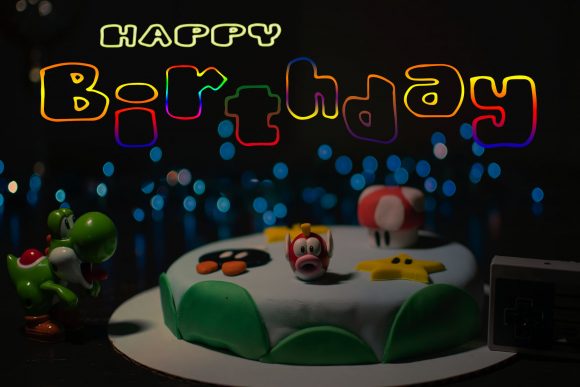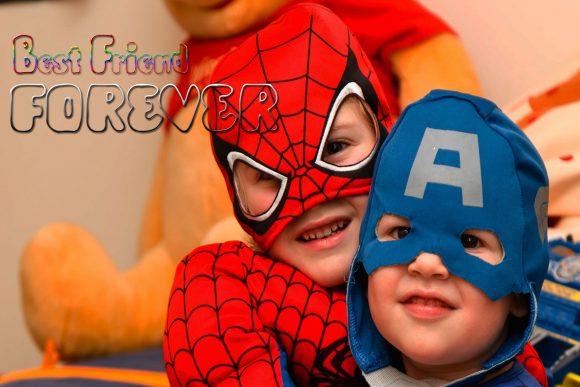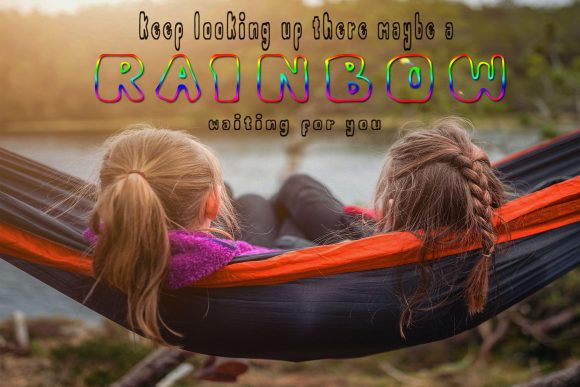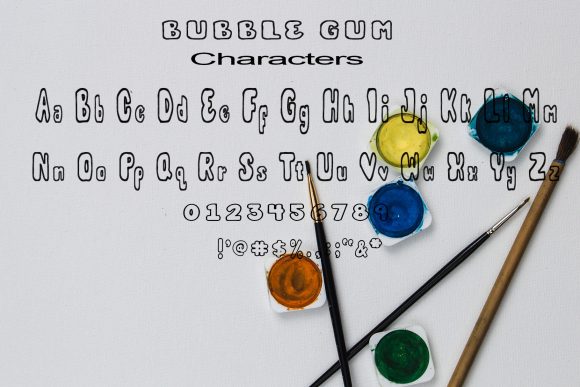
Pop the Fun into Your Designs with the Bubble Gum Font
Remember the thrill of unwrapping a fresh pack of bubble gum as a kid? The excitement of blowing bubbles and watching them float away? That same carefree joy can be captured in your designs with the right font. Enter the Bubble Gum Font, a cool and bubbly outlined display font that’s sure to add a playful touch to any project.
Whether you’re working on a campaign for a kids’ brand, creating a social media graphic, or designing a poster for a fun event, the Bubble Gum Font is an incredibly valuable asset to your library. Its unique outlined design makes it stand out and adds a level of sophistication that’s perfect for elevating any creation.
Bubble Gum Font Key Features
- Font Family: Bubble Gum is a sans-serif font family designed for digital use, available in multiple weights and styles.
- Character Set: The font family includes a wide range of characters, including Latin, Cyrillic, and Greek scripts, making it suitable for global content creation.
- Unique Characteristics: Bubble Gum is known for its playful, rounded shapes and friendly feel, making it an excellent choice for children’s content, entertainment, and casual design projects.
Bubble Gum Font Review
Overall, I was excited to dive into the “Bubble Gum Font” and see what it had to offer. As a designer, I appreciate unique and playful typography, and this font delivers.
- The font’s rounded edges and bubbly texture create a fun and whimsical feel that’s perfect for children’s books, party invitations, or any other project that needs a playful touch.
- The font is highly customizable, with a range of styles and sizes available, making it easy to adapt to different design needs.
- The font’s bold and colorful design makes it stand out on any background, ensuring it always gets noticed.
- The font may be too loud or overpowering for more subtle designs or projects where a more understated look is needed.
- The font’s rounded edges and bubbly texture may not be suitable for formal or professional projects, such as business reports or academic papers.
- The font’s limited font styles and sizes may make it less versatile than other fonts for certain design projects.
Overall, the “Bubble Gum Font” is a fun and playful font that’s perfect for projects that need a lighthearted and whimsical touch. While it may not be suitable for all design projects, it’s a great addition to any designer’s toolkit for when a bit of fun and flair is needed.
Some common use cases for the Bubble Gum font include:
– Creating playful and whimsical designs for children’s products or events.
– Adding a touch of nostalgia to retro-themed designs.
– Using it in conjunction with bright colors and bold graphics for a fun and eye-catching effect.
Getting the Most Out of the Font
To get the most out of the Bubble Gum font, experiment with different font sizes and styles to create visual interest.
– Use it in combination with other playful fonts for a unique and eye-catching effect.
– Experiment with bolding or italicizing the font to add emphasis to certain words or phrases.